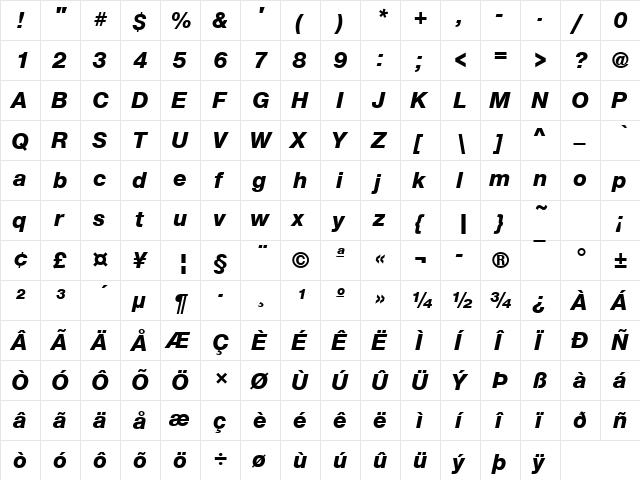
NimbusSanNovTHea Italic Font Preview
NimbusSanNovTHea Italic
Design Context for NimbusSanNovTHea Typeface
NimbusSanNovTHea is a composed and adaptable typeface that performs quietly and consistently across a wide range of design contexts. The slanted form adds forward momentum and visual energy.
Pro Tip: Try NimbusSanNovTHea for annotation and caption copy alongside an upright companion — the contrast in angle creates a dynamic but ordered typographic system.